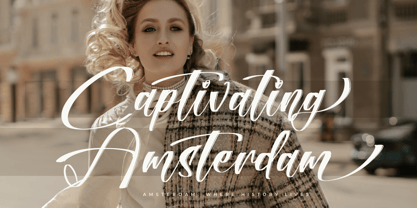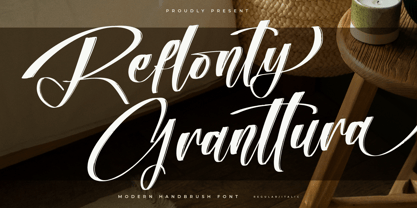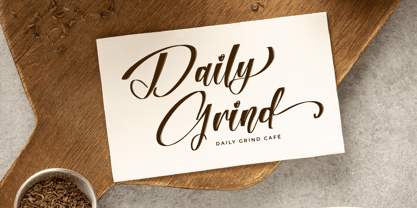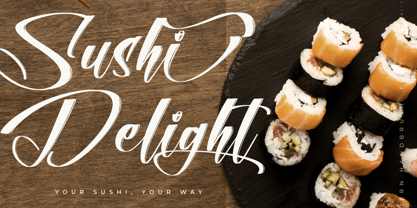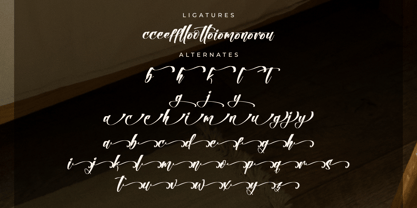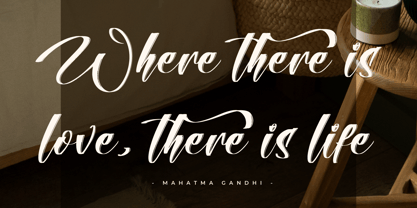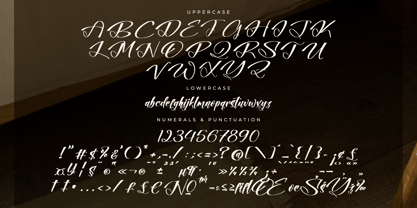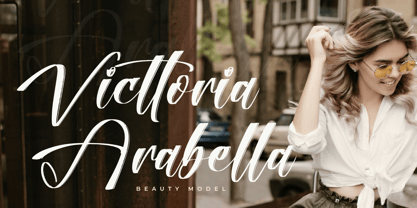
Reflonty Granttura
by Letterena Studios
The Reflonty Granttura Font Family was designed by Heru Utama Putra and published by Letterena Studios. Reflonty Granttura contains 1 styles. More about this family
Reflonty Granttura – Modern Handbrush Font , from Letterena, is a Luxury Script font, suitable for any projects such as: logos, branding projects, homeware designs, product packaging, mugs, quotes, posters, shopping bags, t-shirts, book covers, name card, invitation cards, greeting cards, label, photography, watermark, special events, and all your other luxury and beautiful projects that need a Luxury serif taste.